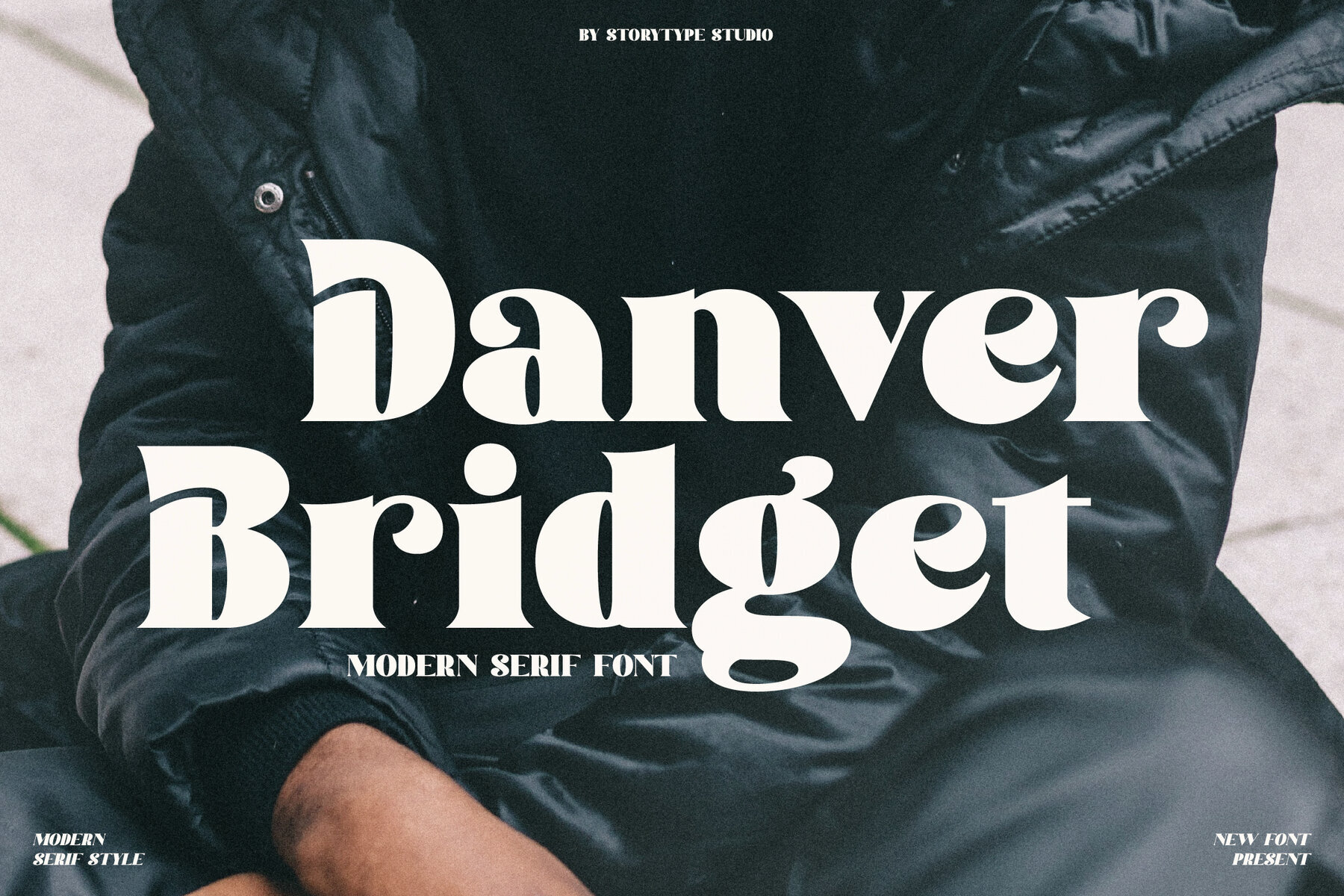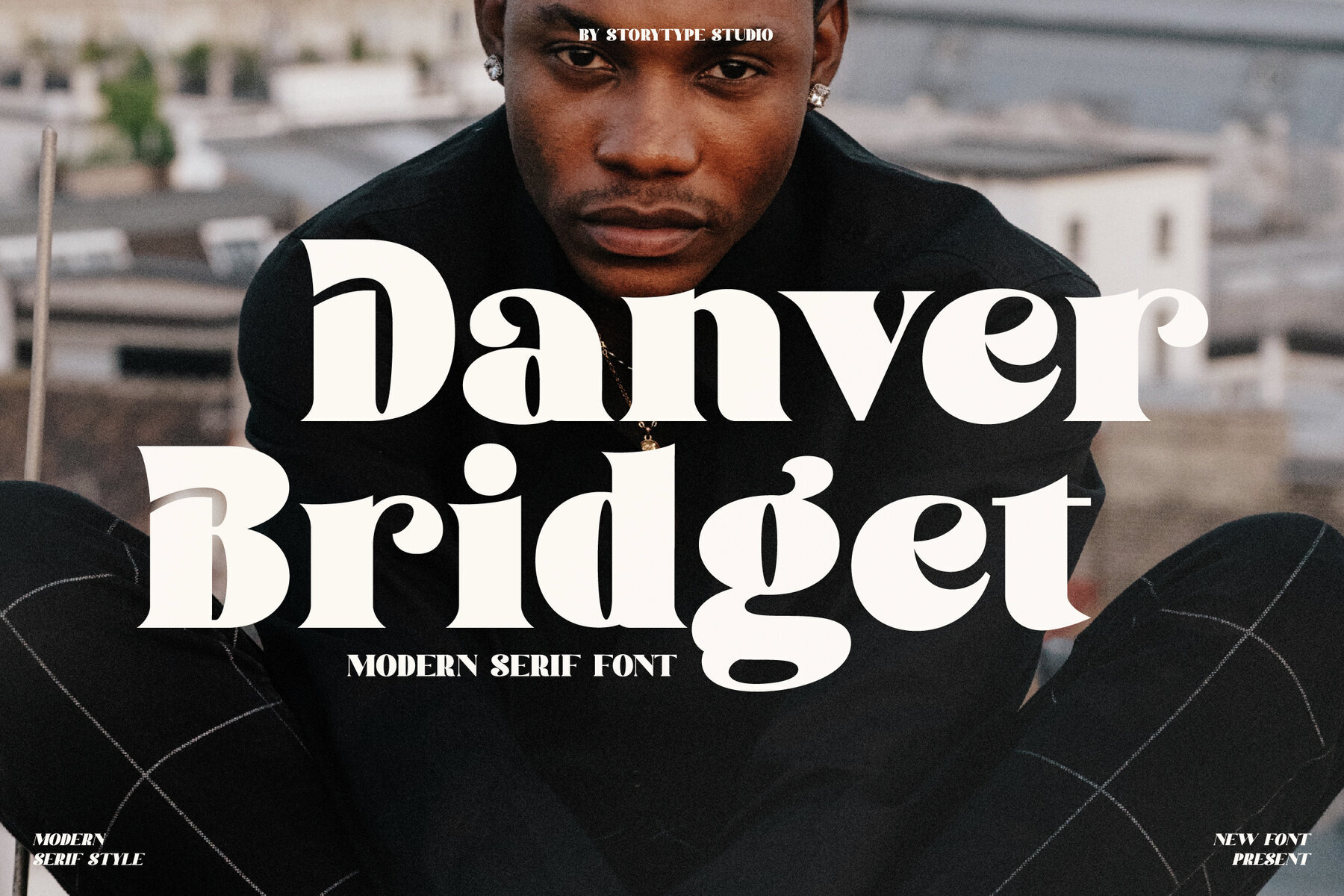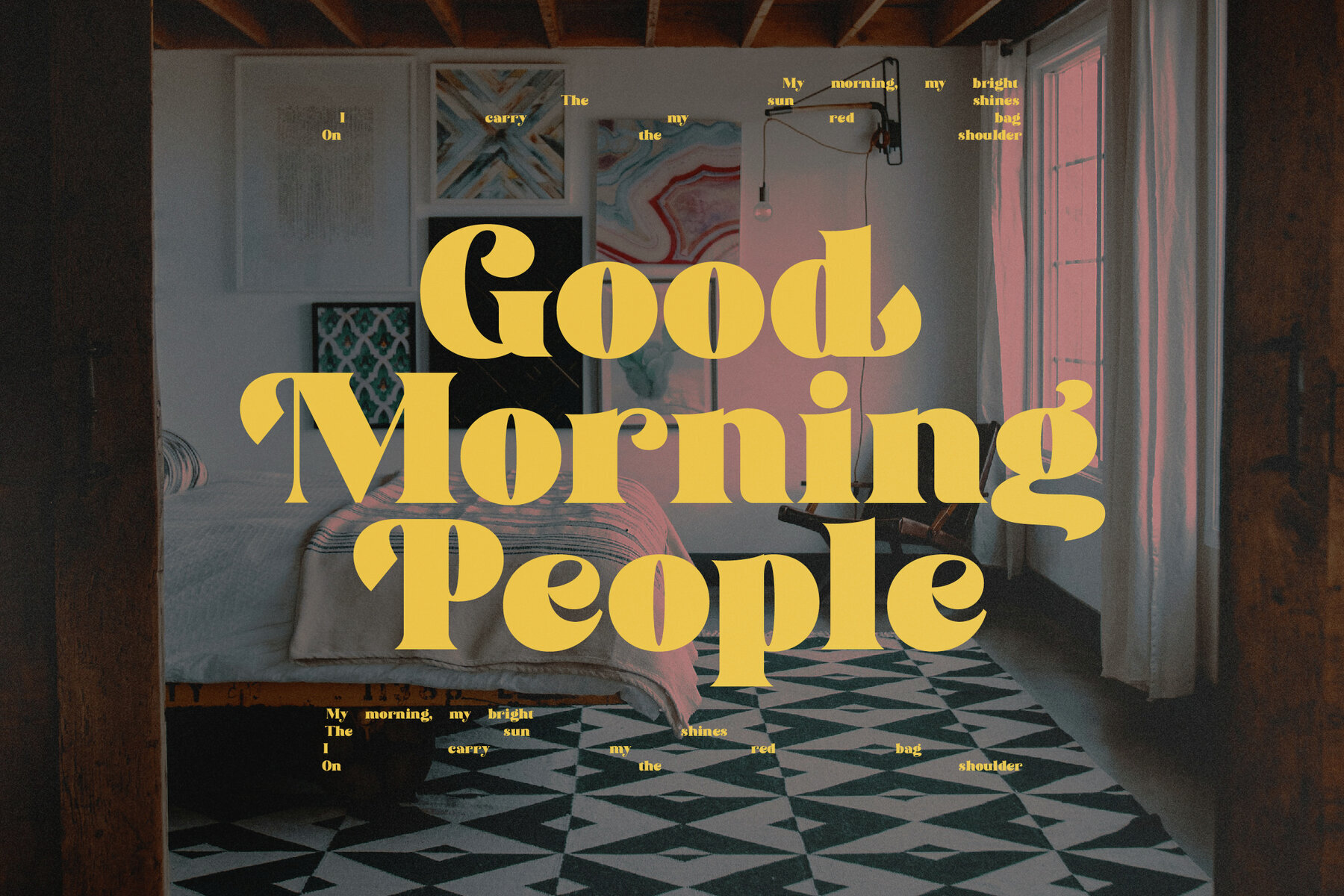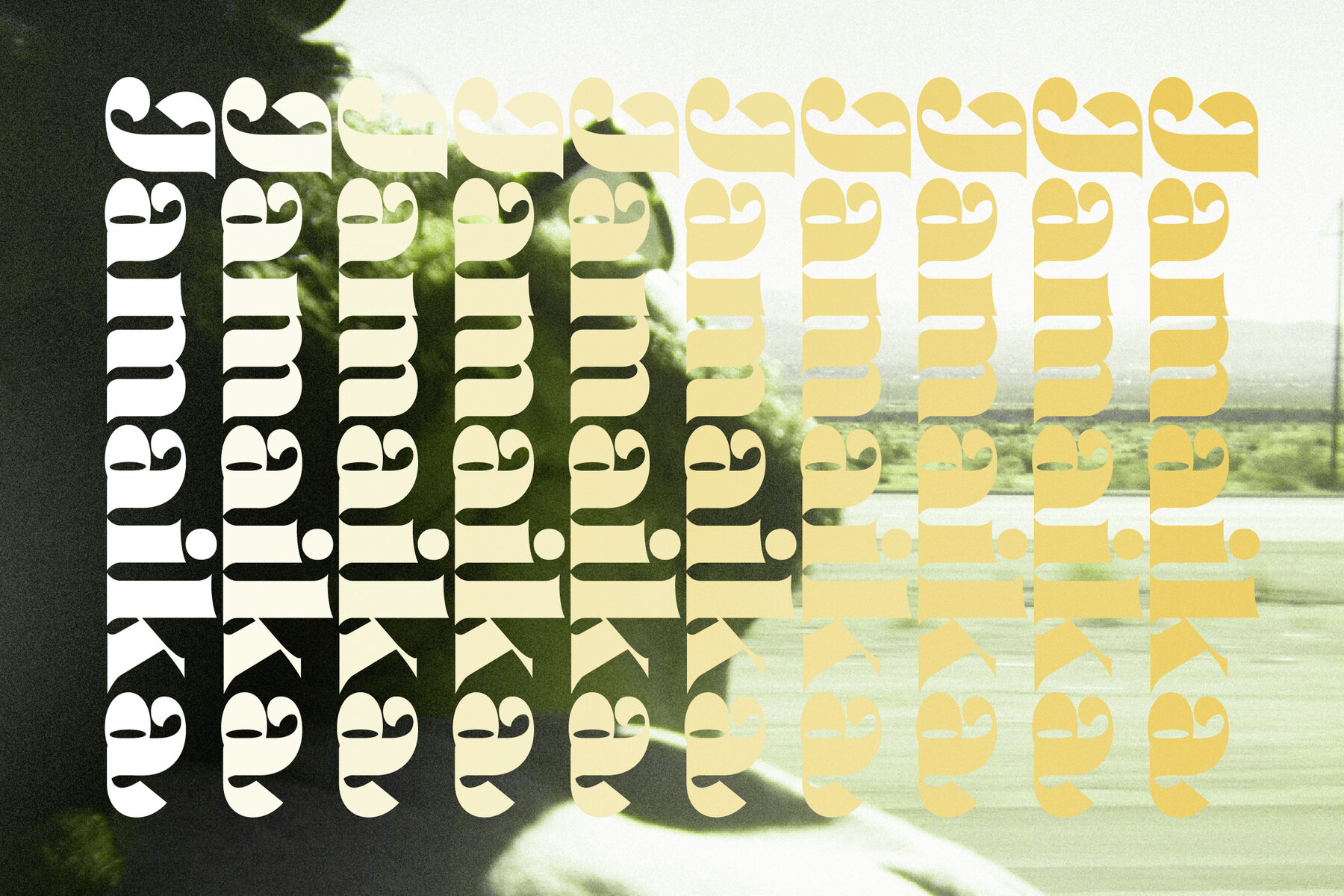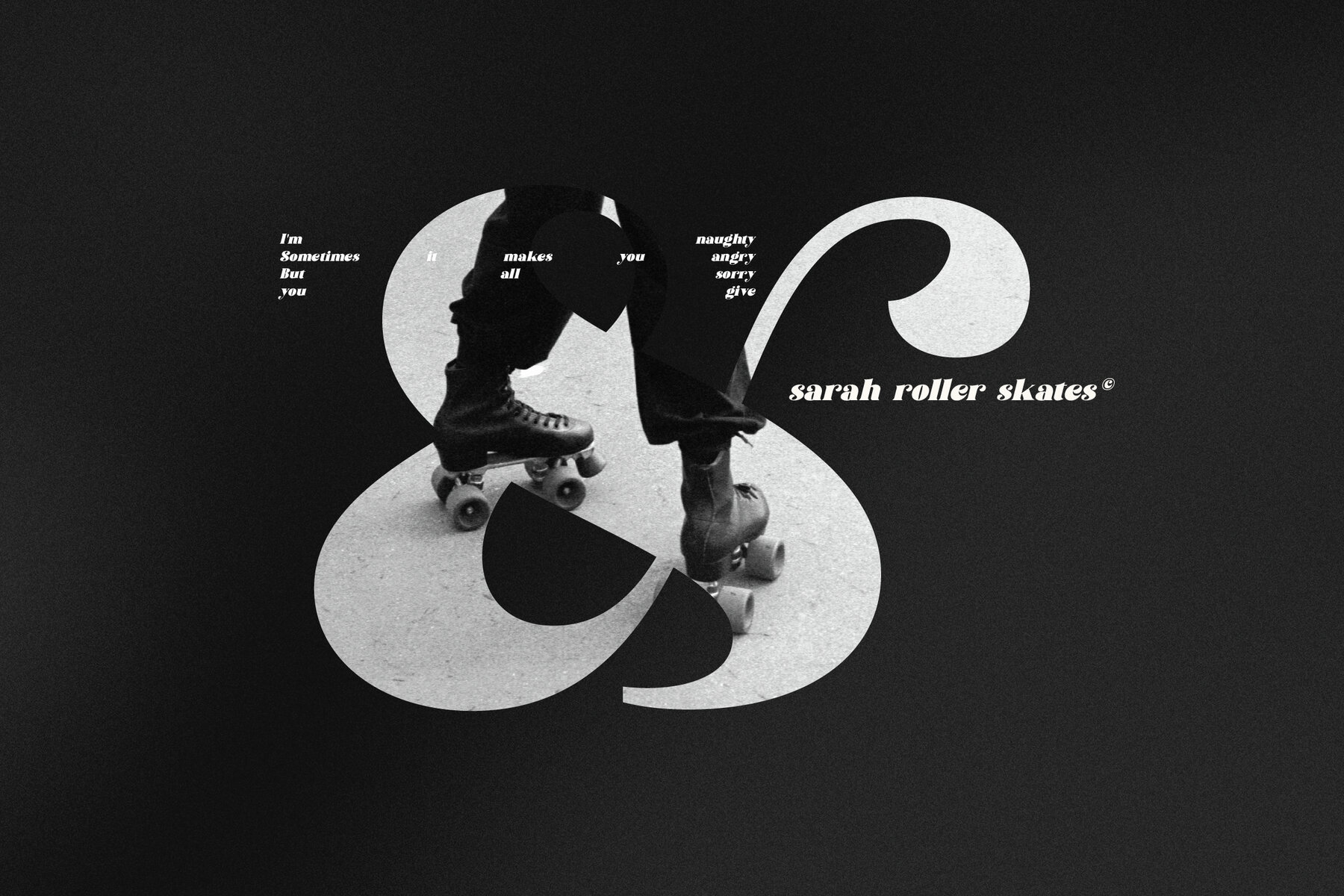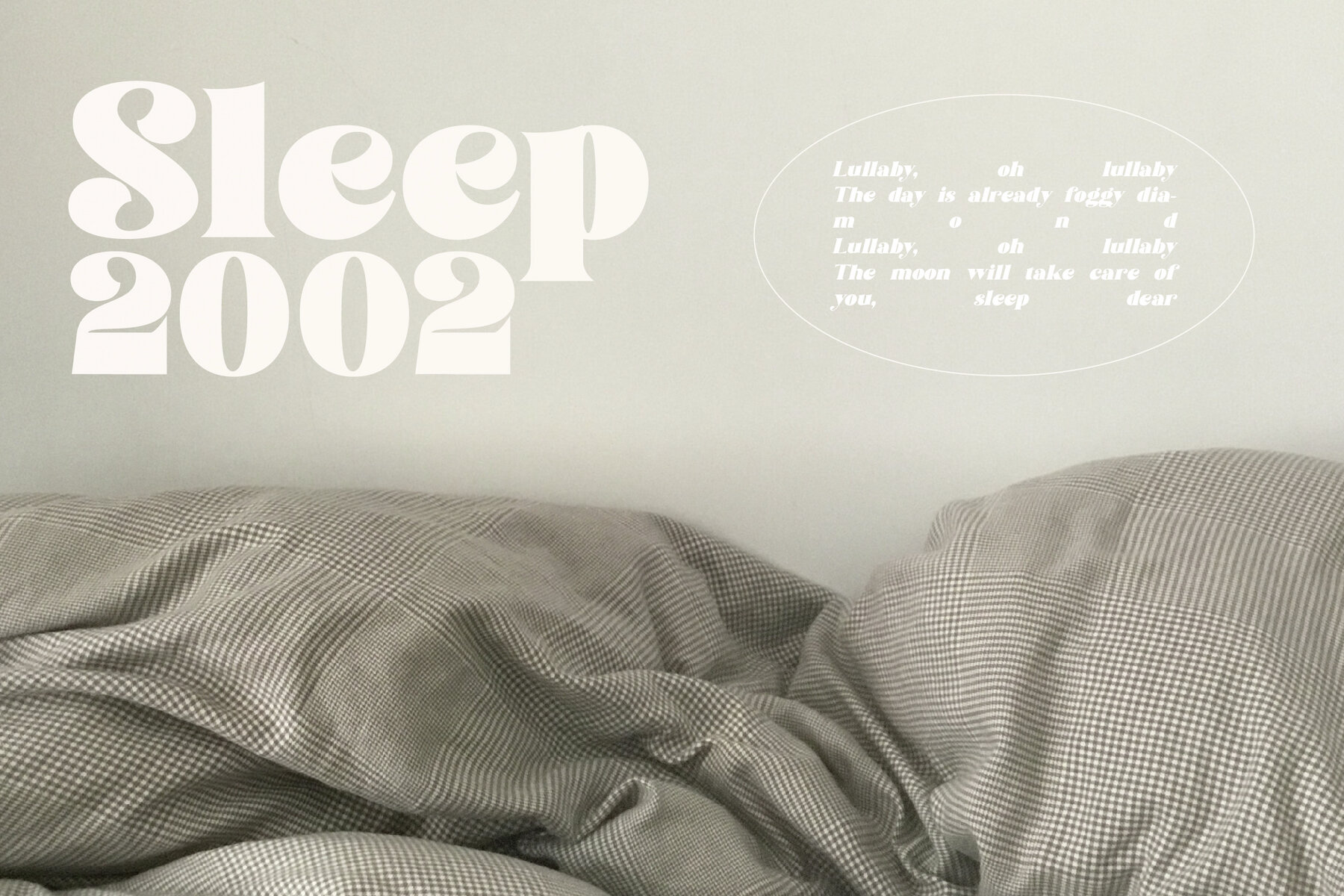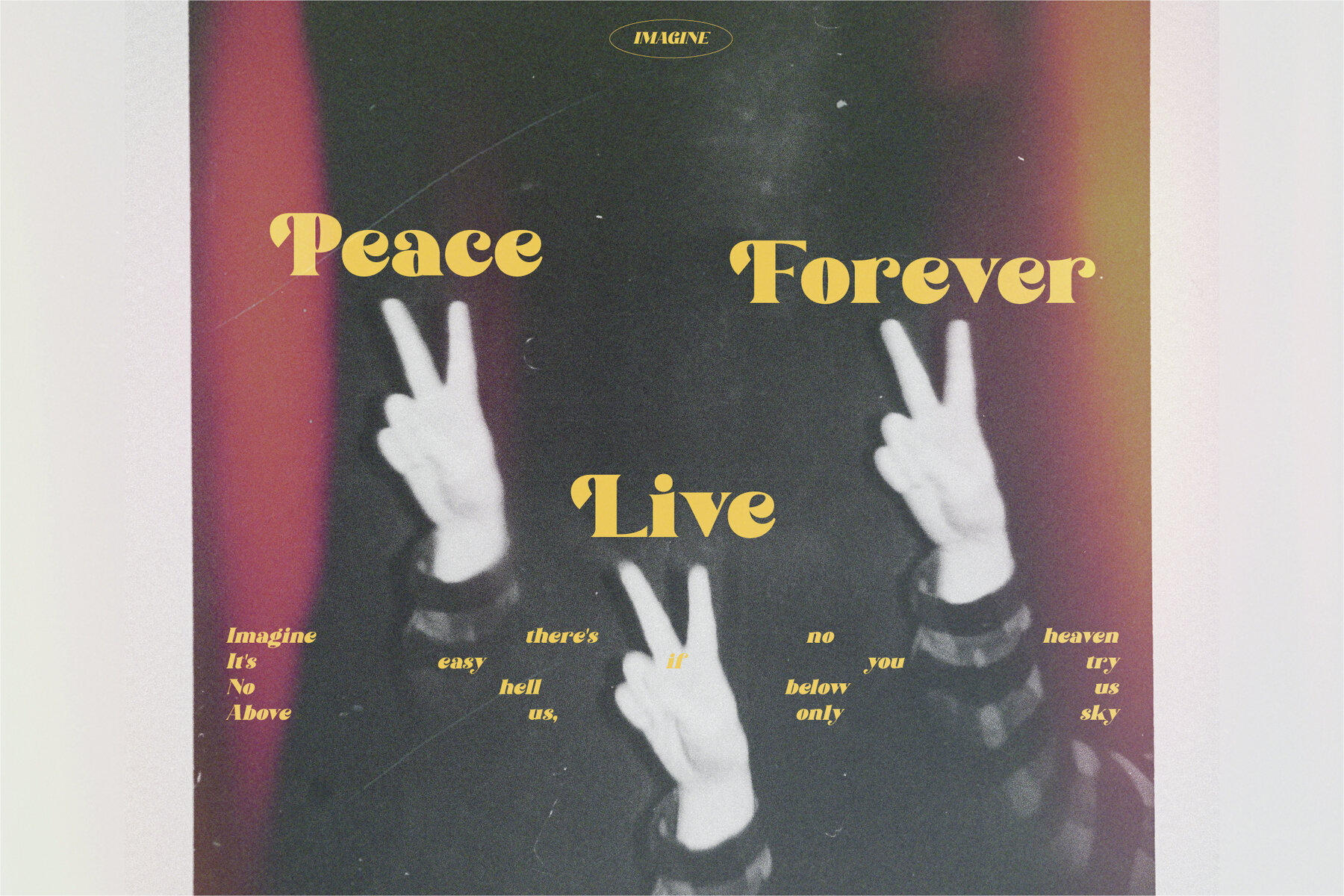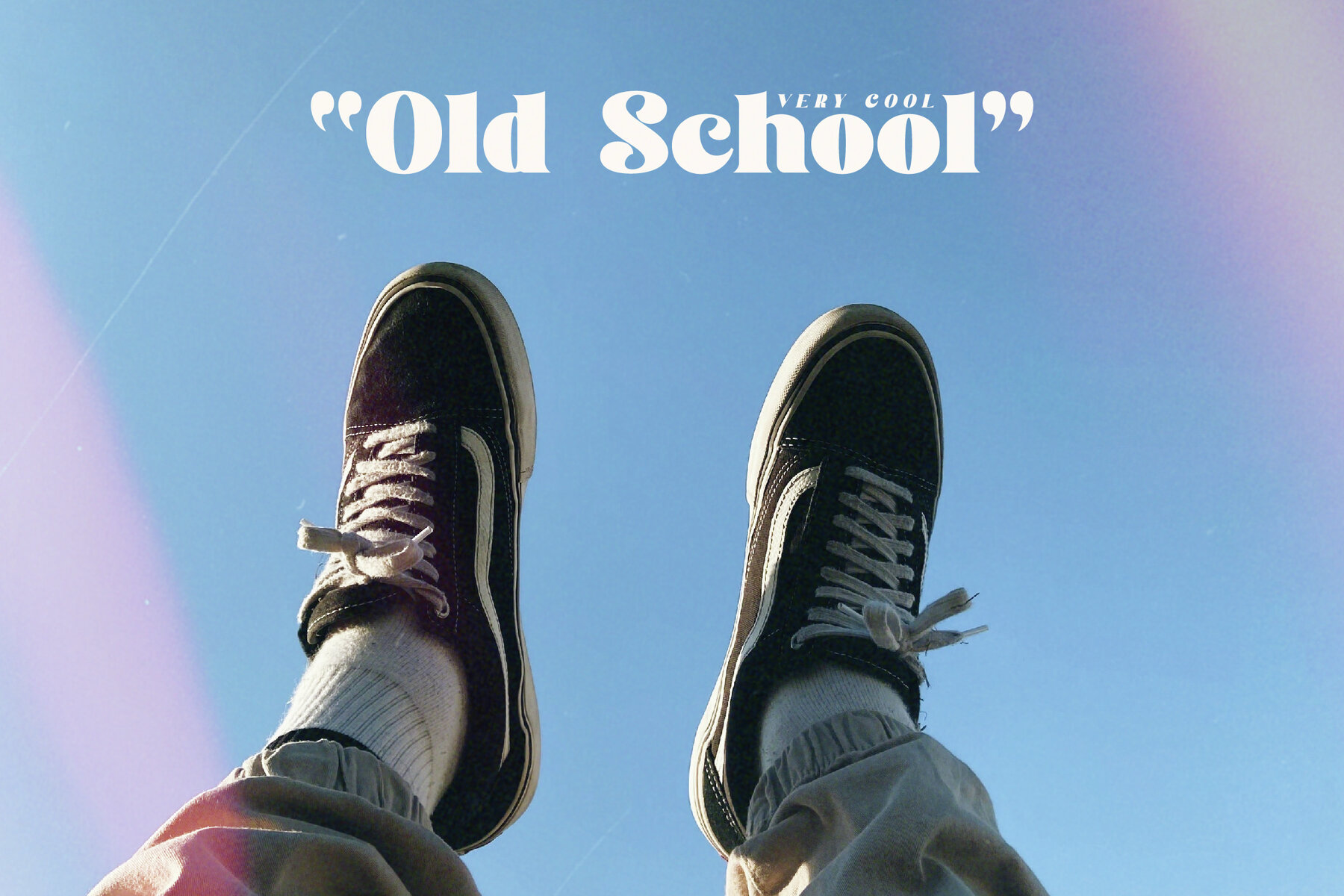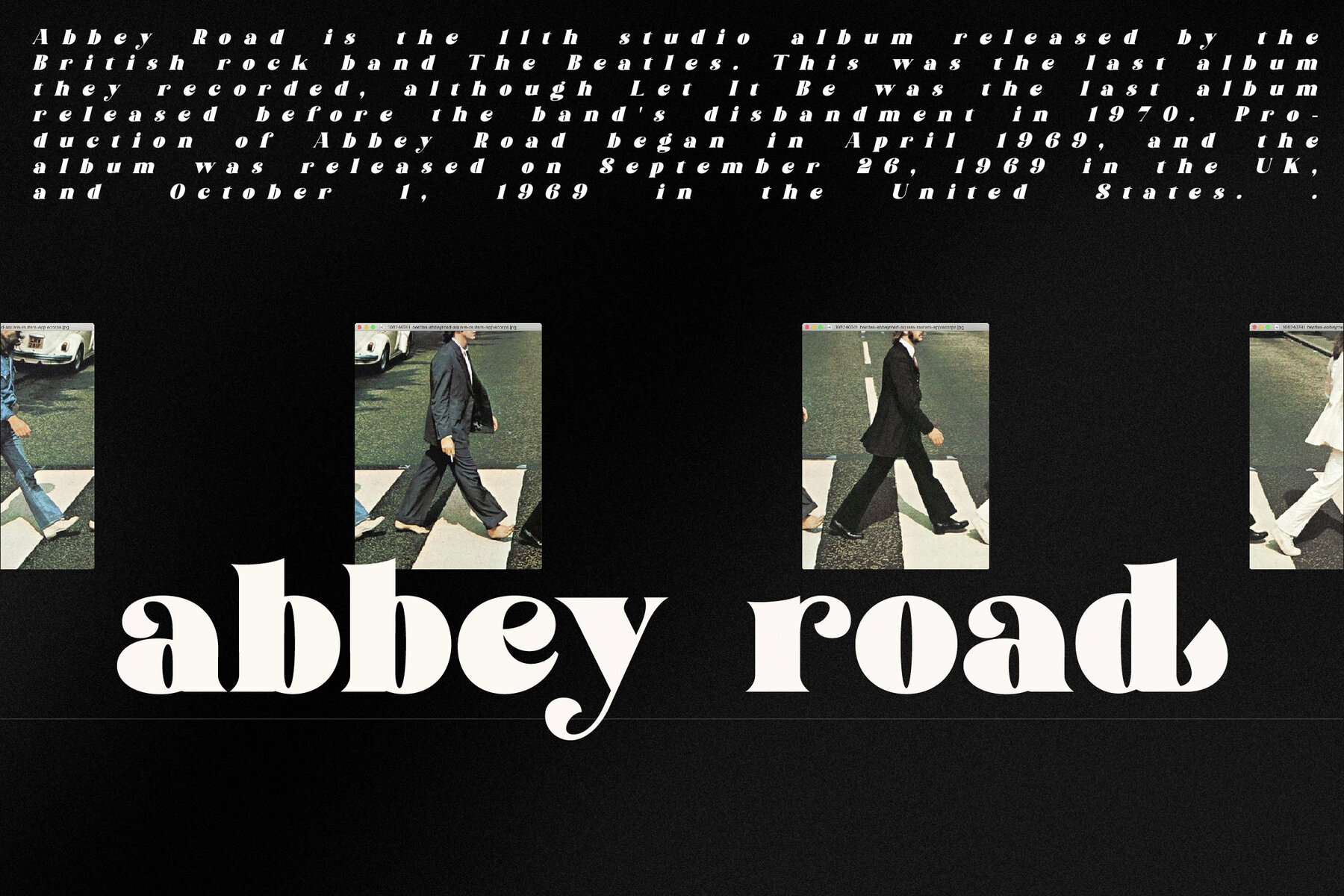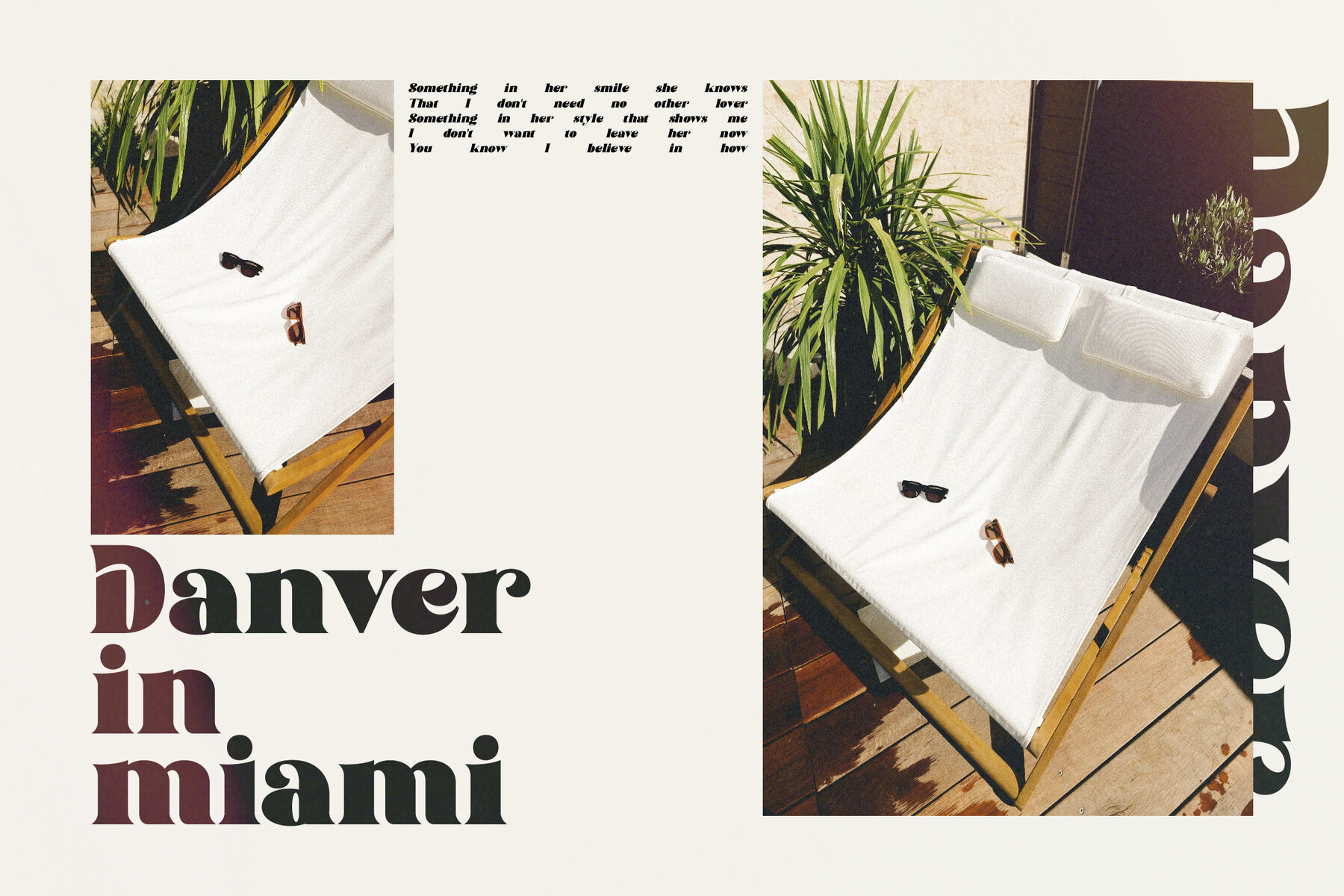
Danver Bridget Font
Danver Bridget Typeface by Storytype Studio is a sophisticated serif font that blends modern and classic elements for a distinct and stylish appearance. Ideal for creating luxurious logos, elegant book or movie titles, and fashion branding, this typeface delivers a polished and chic aesthetic. Its versatile design also makes it an excellent choice for magazines, clothing lines, and artistic quotes.